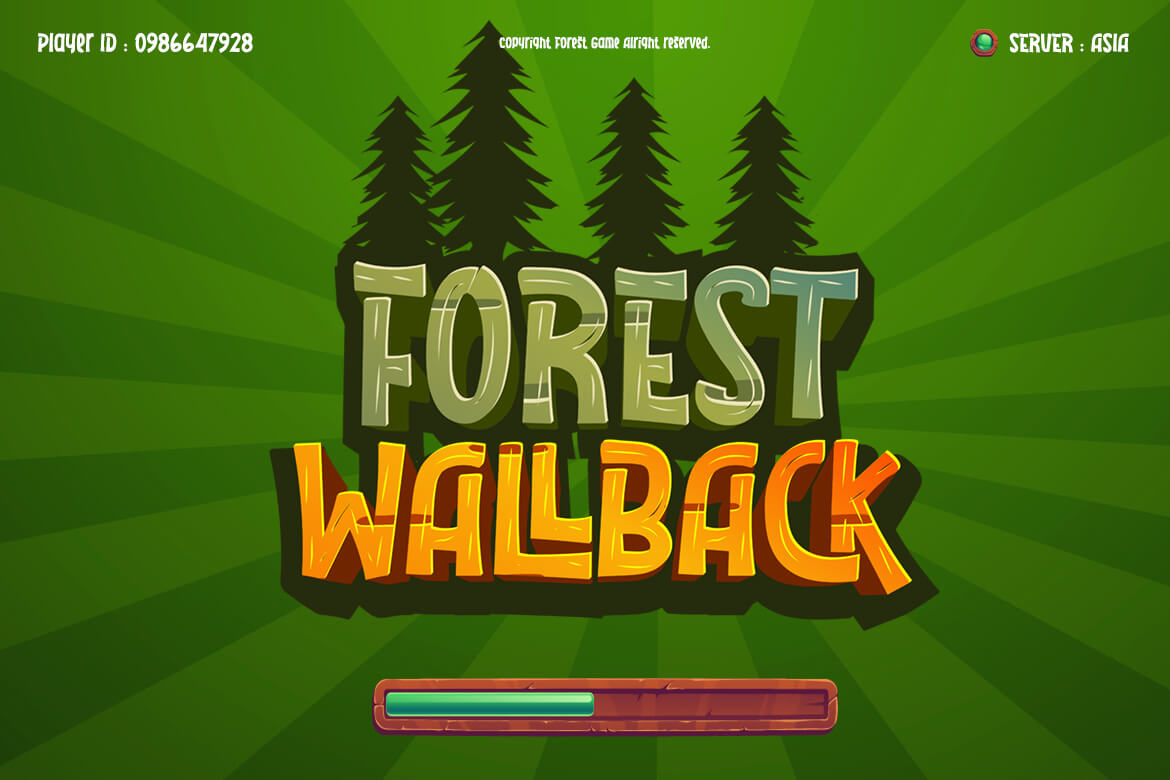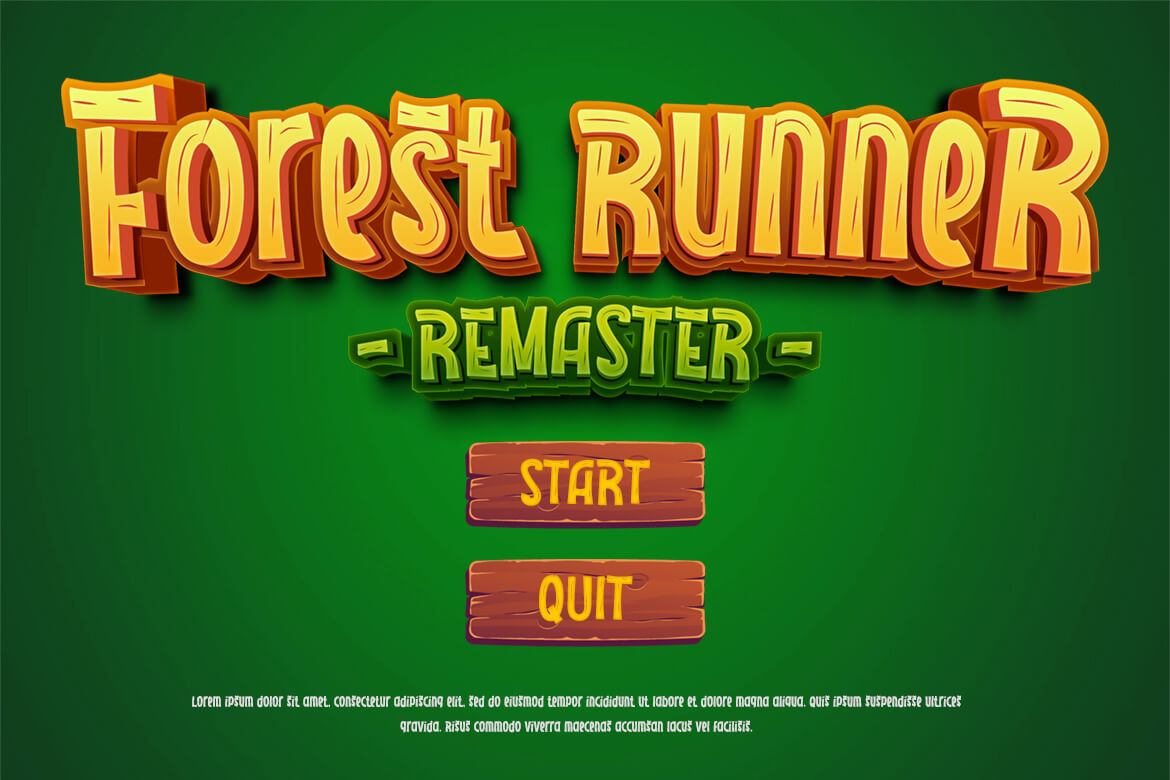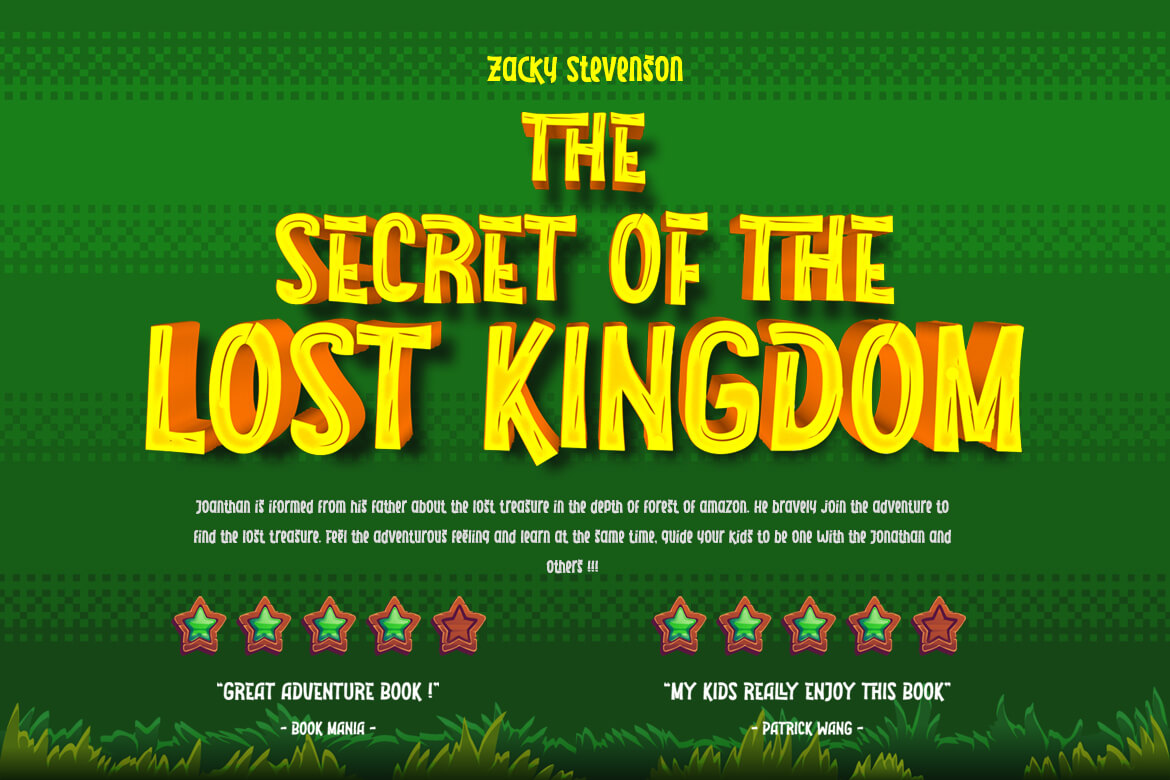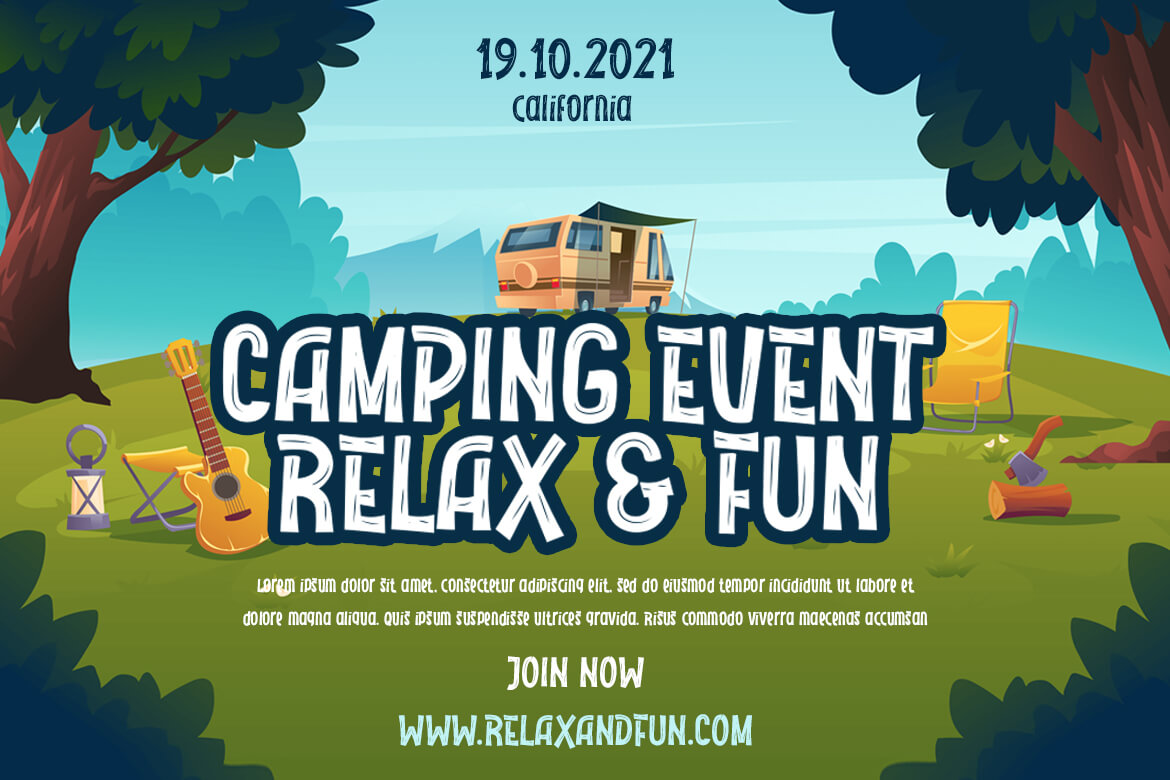
Backeth Font
Backeth Display Font
This is a fun display typeface with a wood character, which is natural, beautiful, and full of modern flair. For your outstanding project, we provide a dramatic, distinctive, flexible, attractive, brave typeface with an elegant and lovely shape for many types of presentations.
This typeface is ideal for application in a variety of unusual graphic projects, including games, book titles, outdoor activities, posters, banners, quotes, branding, and other unique projects.